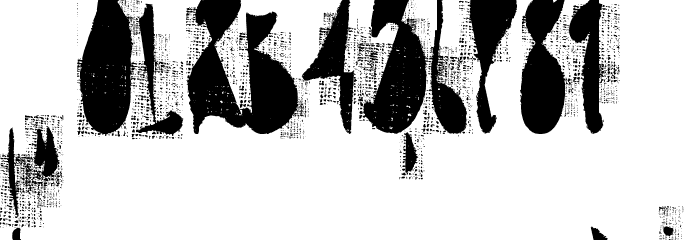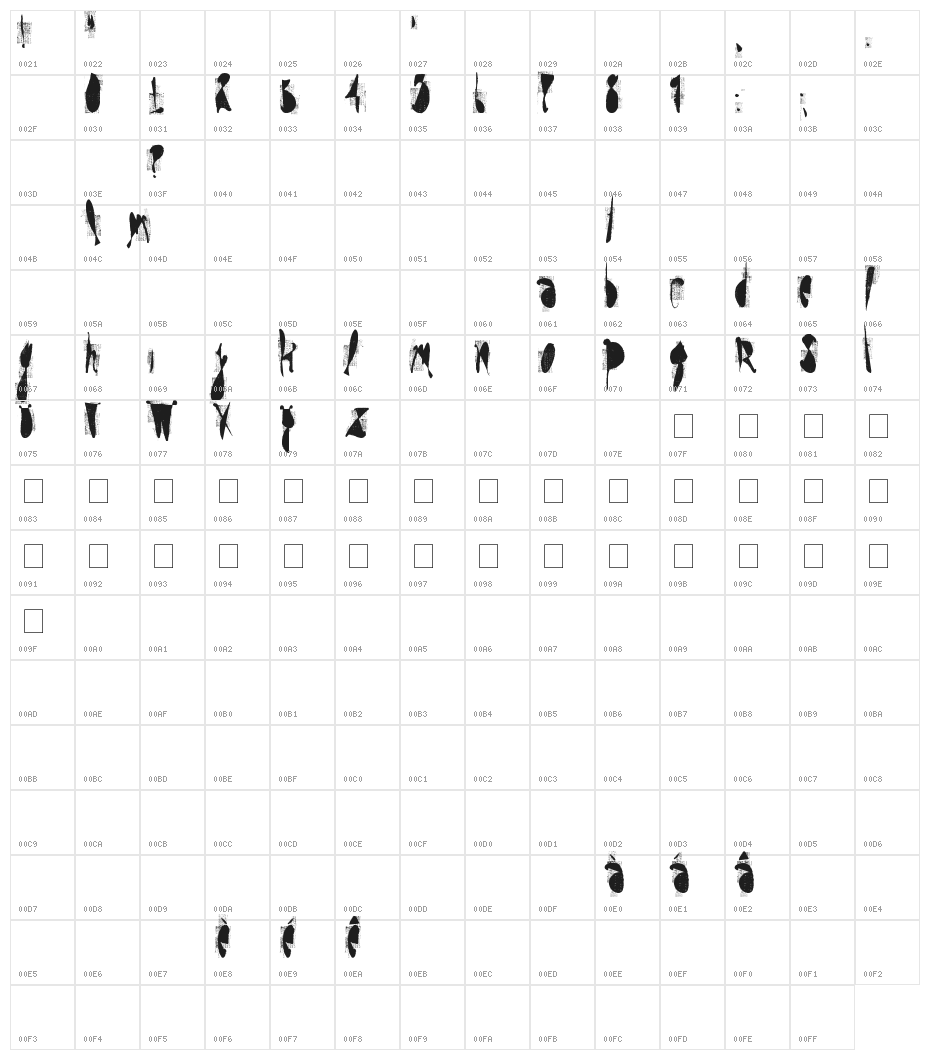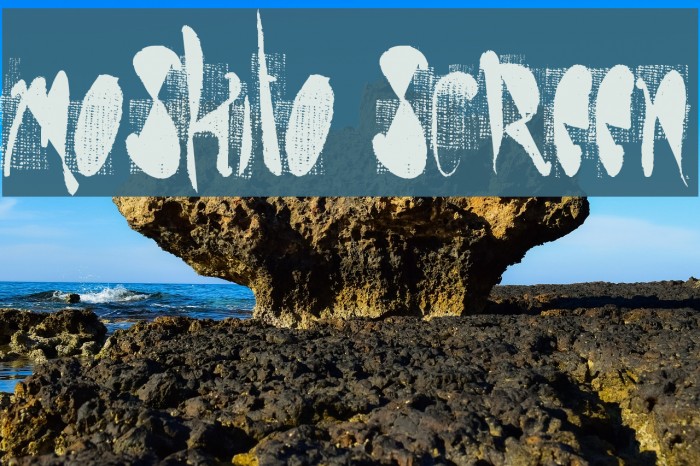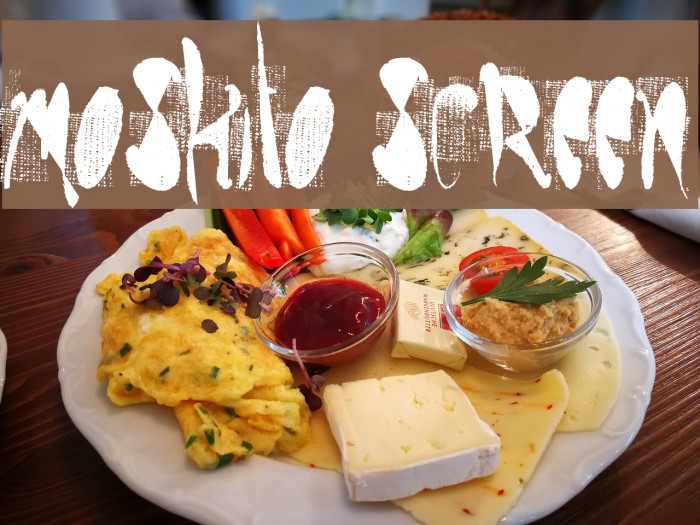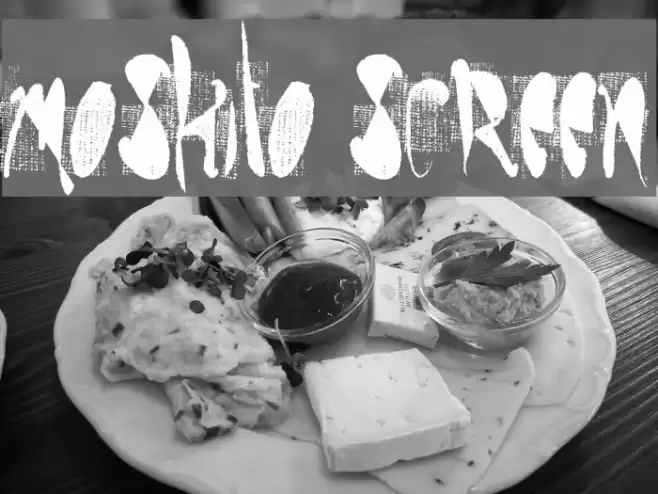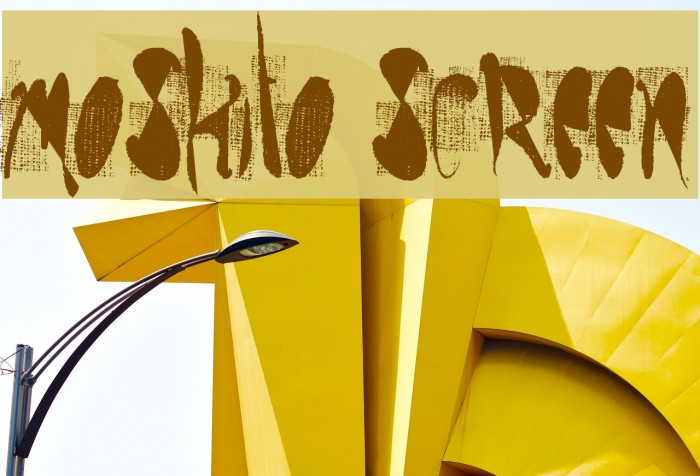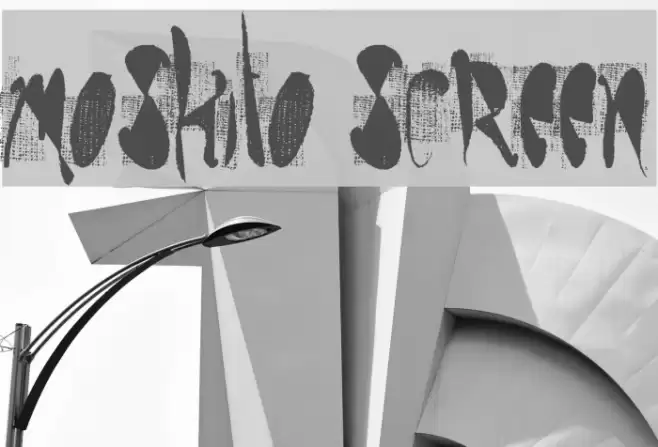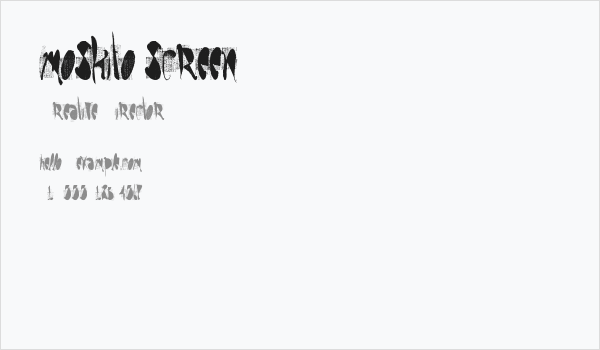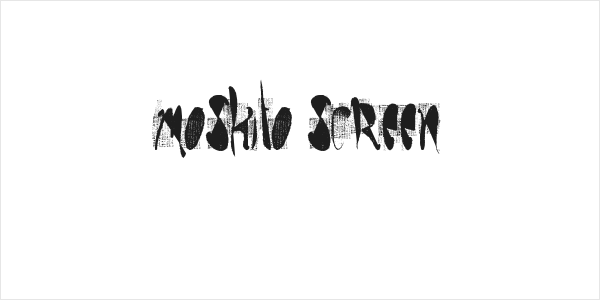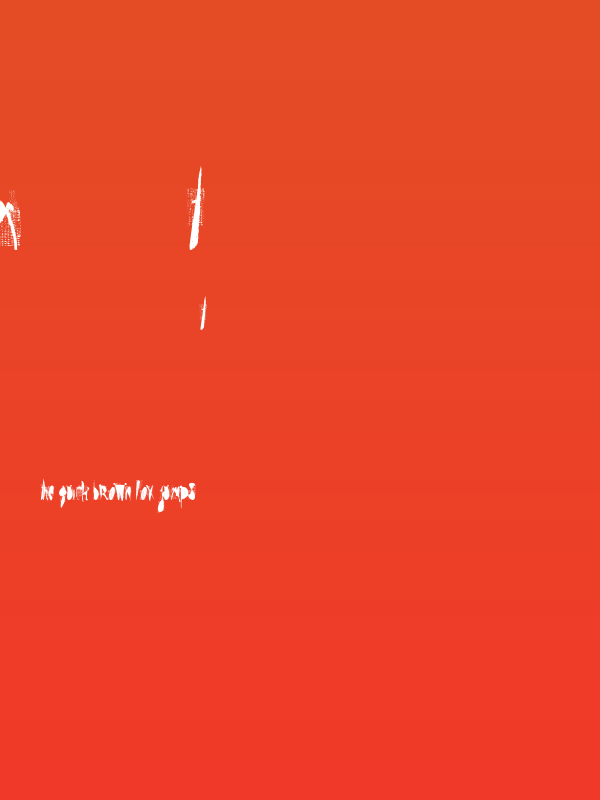
moskito screen Font
moskito screen Description
This font exhibits a highly distressed and grungy aesthetic, characterized by its rough, textured appearance. The letters are irregular and appear as if they have been stamped or printed with a worn-out ink pad, giving them a unique, artistic flair. The uppercase and lowercase letters blend seamlessly, maintaining a consistent style throughout. Numbers and special characters follow the same distressed pattern, adding to the overall cohesive look. This font is ideal for projects that require a bold, unconventional statement, such as album covers, posters, or edgy branding materials.
| Overall Style | Grunge, Artistic |
| Proposed Projects | Album covers, posters, edgy branding, artistic projects. |